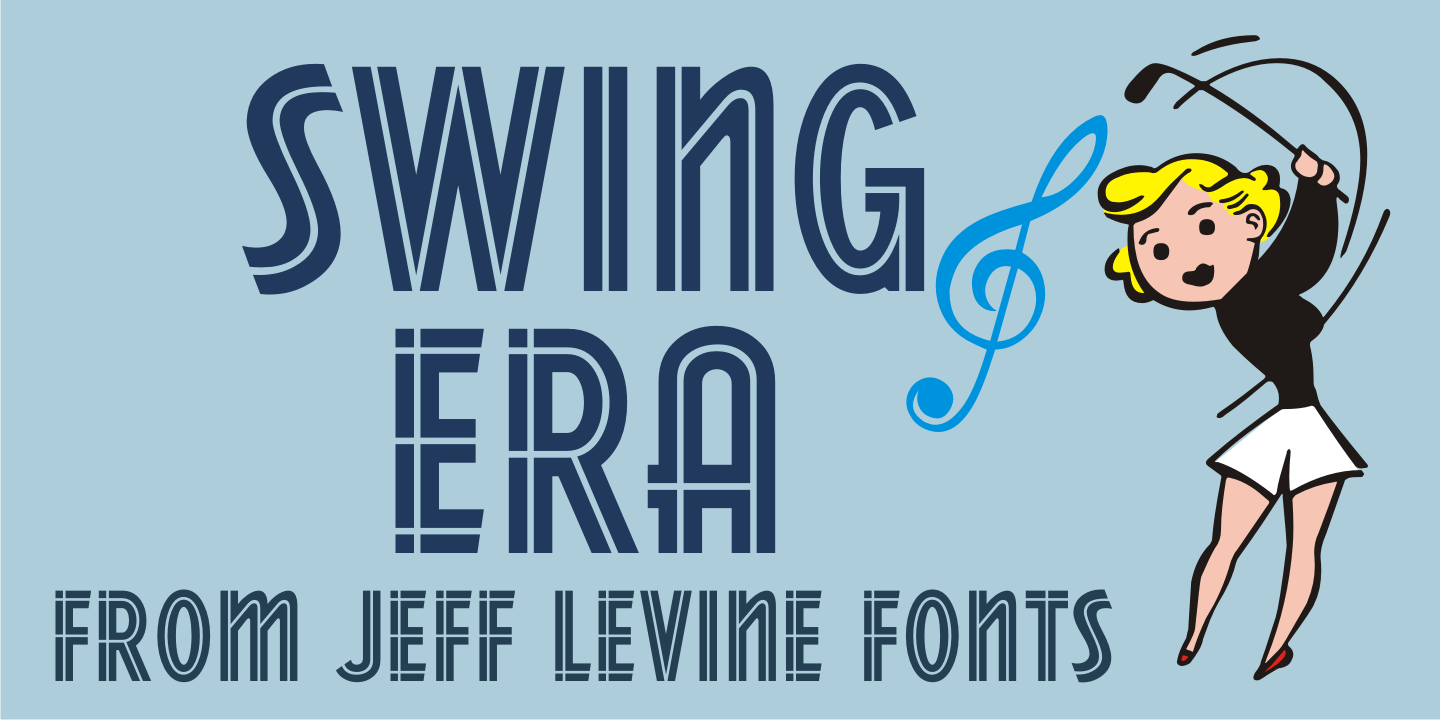
Swing Era
Hand lettered Art Deco lettering for the title on the cover of the 1930s-era song "And I Still Do" provided the inspiration for Swing Era JNL.
A bold, casual and friendly typeface, it features an intersecting inline through some of the characters.
One could almost picture the hottest big band of the day promoted on a lobby card with this alphabet, beckoning all to come on in and "cut a rug".